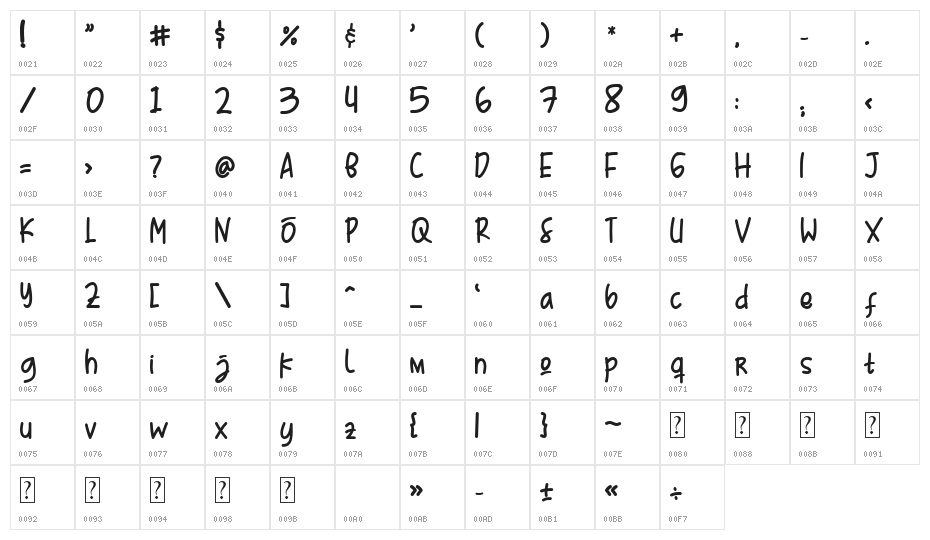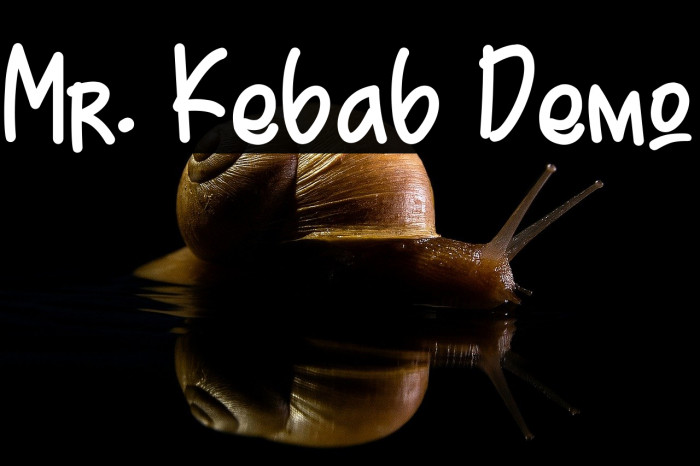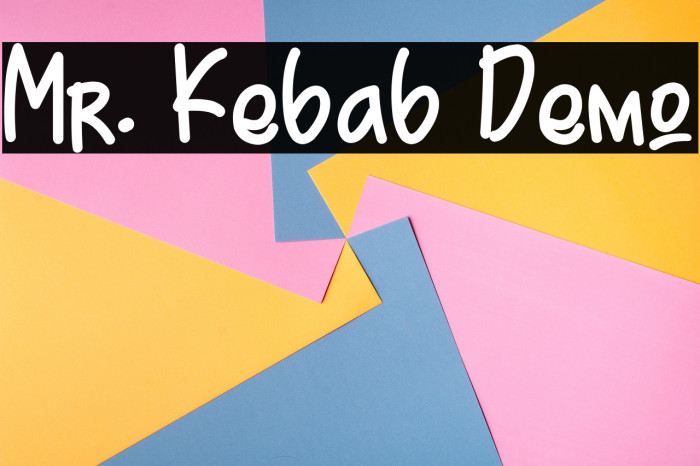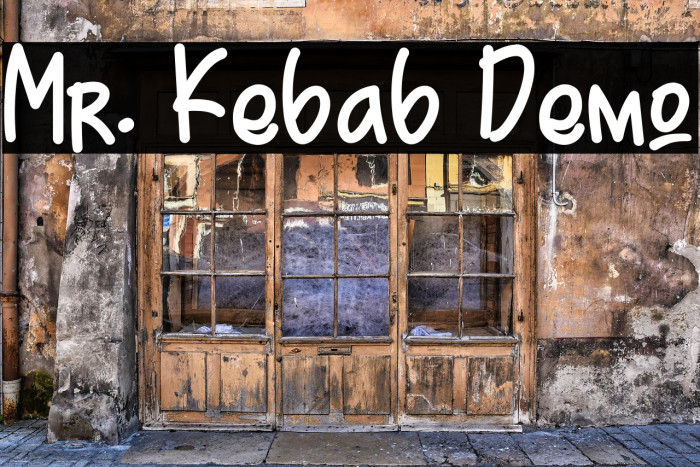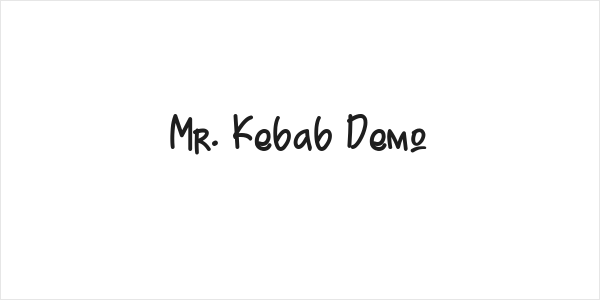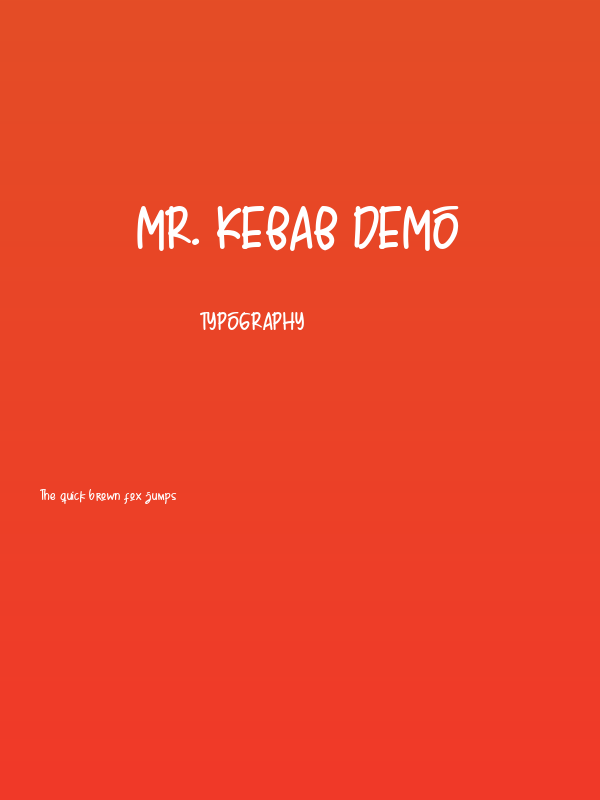
Mr. Kebab Demo Font
Mr. Kebab Demo Description
This playful and energetic font features a handwritten style with bold, rounded strokes that convey a sense of fun and informality. The letters are slightly irregular, adding to the casual and approachable feel. Uppercase and lowercase characters maintain a consistent style, with a slight slant that suggests movement and dynamism. The numerals and special characters are equally expressive, fitting seamlessly with the overall aesthetic. This font is perfect for projects that require a personal touch or a youthful vibe, such as children's books, playful branding, or casual invitations.
| Proposed Projects | Ideal for children's books, playful branding, casual invitations, and informal social media graphics. |